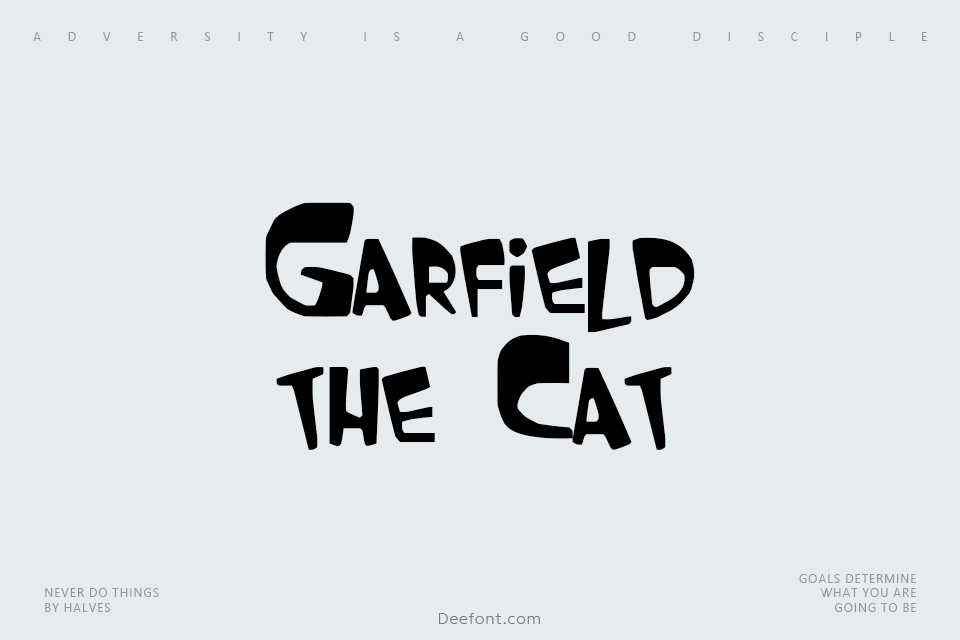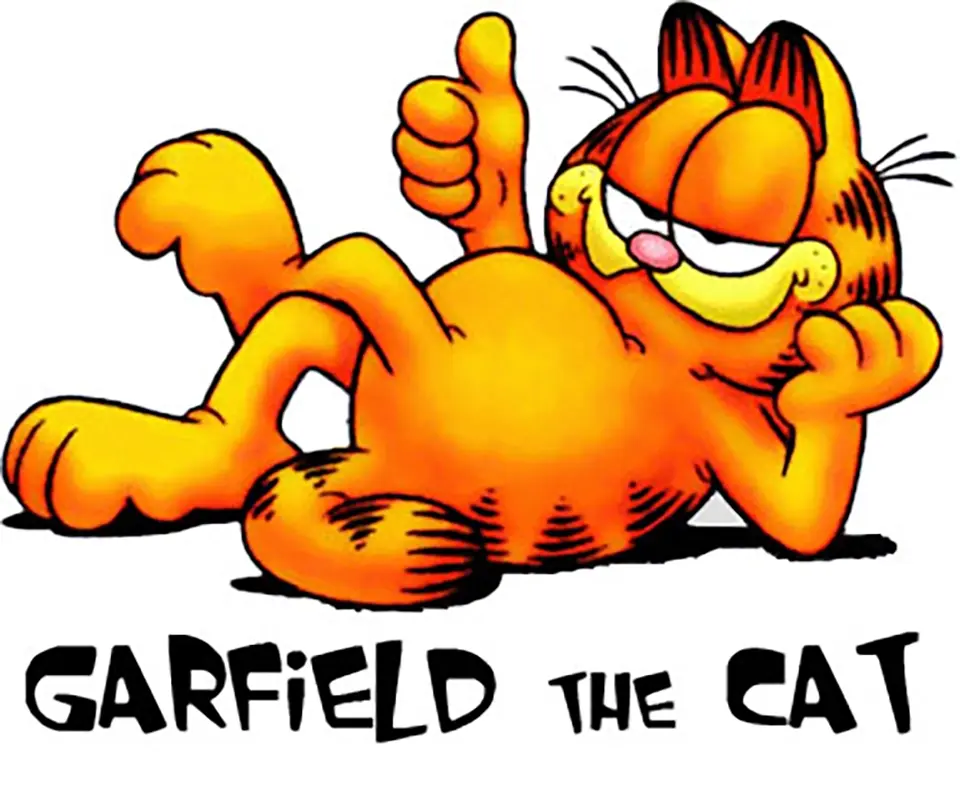
Garfield the Cat Font
GARFIELD the CAT is a playful and cartoonish display font that captures the whimsical essence of comic strips. Featuring bold, exaggerated curves and chunky letters, this font brings personality and humor to your creative projects. With its lively and animated appearance, it’s perfect for headlines, logos, comic books, children’s books, greeting cards, and eye-catching branding. The distinctive style of GARFIELD the CAT ensures your designs stand out while maintaining excellent readability. Whether you’re designing posters, creating playful branding, or adding fun text to images, this versatile decorative font delivers the perfect balance of style and functionality.